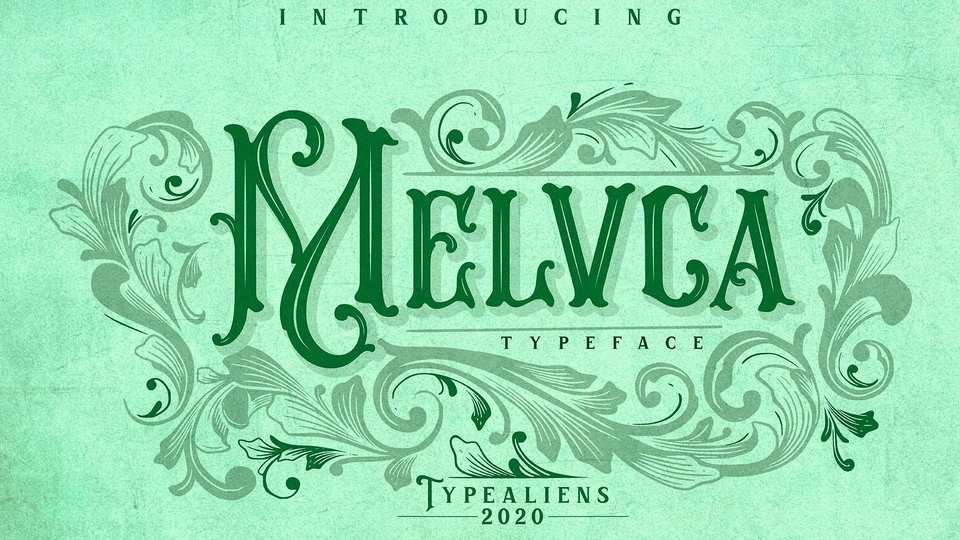
Download Melvca font, a display typeface with a vintage art nouveau. Melvca inspired by the form of leaves / tendrils, like art nouveau features that contain a lot of floral elements.
Designer: Typealiens